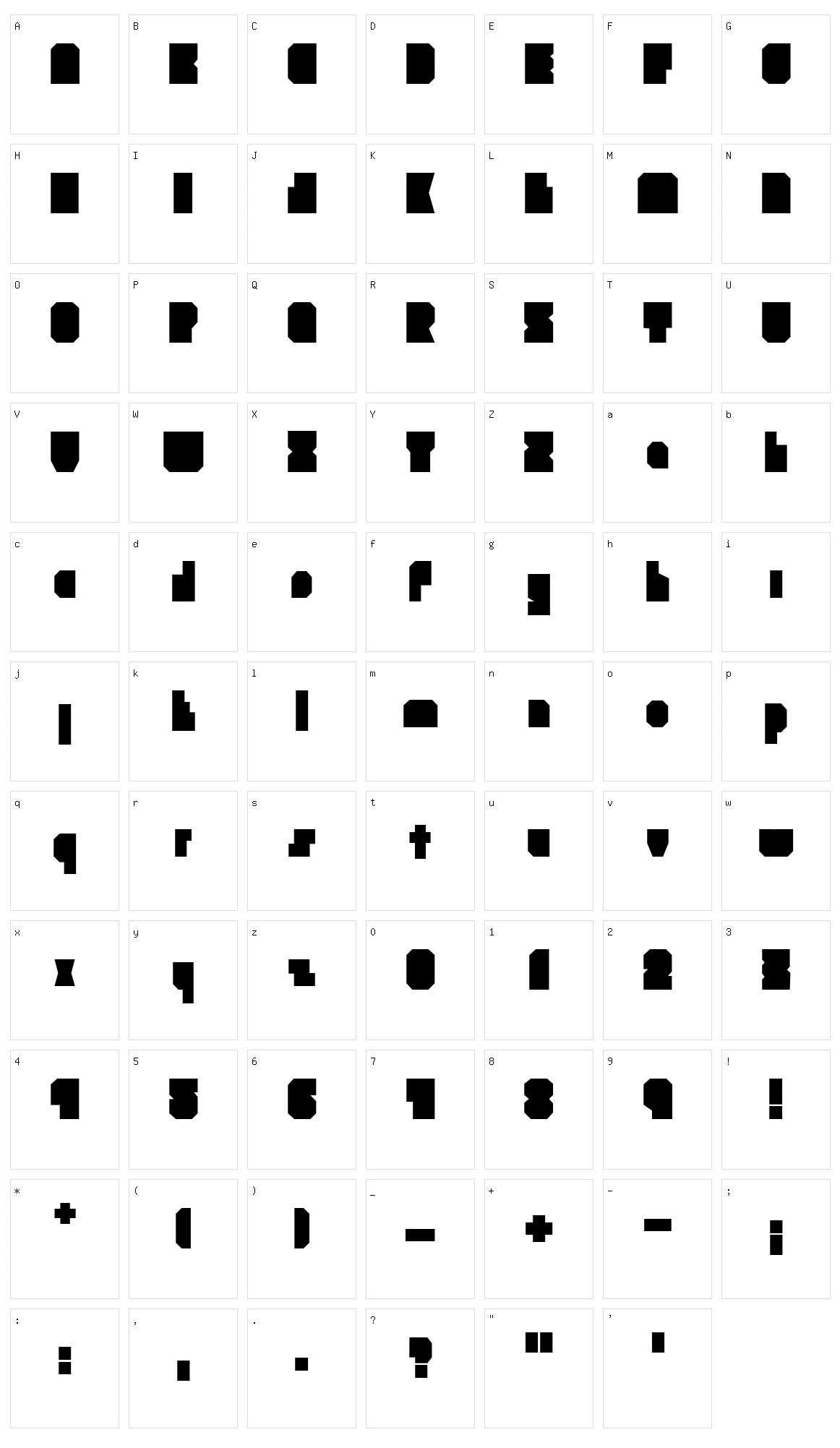
The free font Branko Kockica is carefully designed by Dimitar Vuksanov, showcasing a thoughtful balance of creativity and usability and falls under the Square font style. When you download the ZIP file, it contains only 9.56 KB of font files, making it lightweight and quick to download. Please review the license details below to understand permitted usage and distribution rights. If license information is not available, we recommend using this font for personal projects only or contacting the author directly for commercial usage permissions.